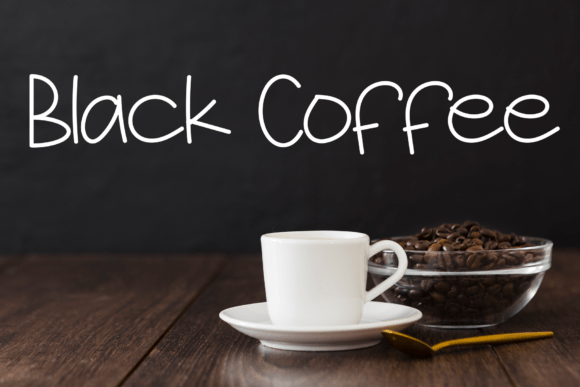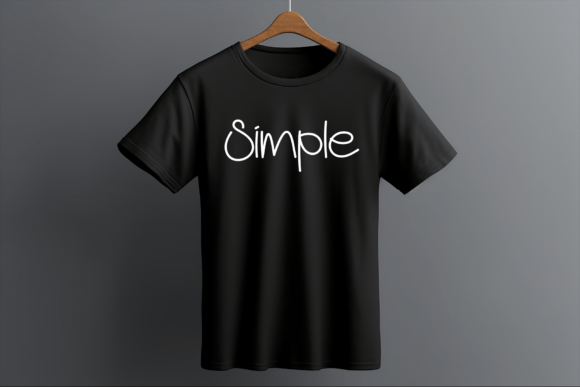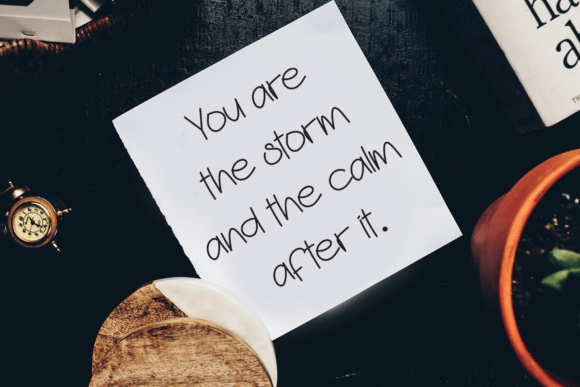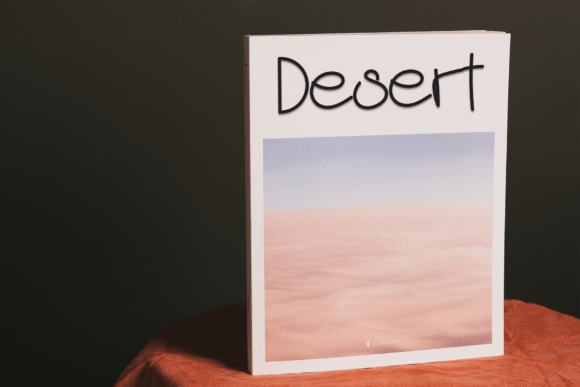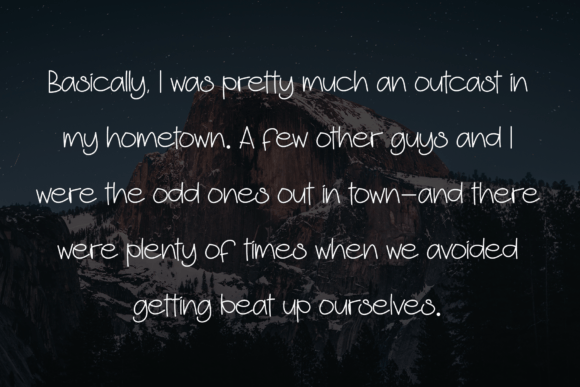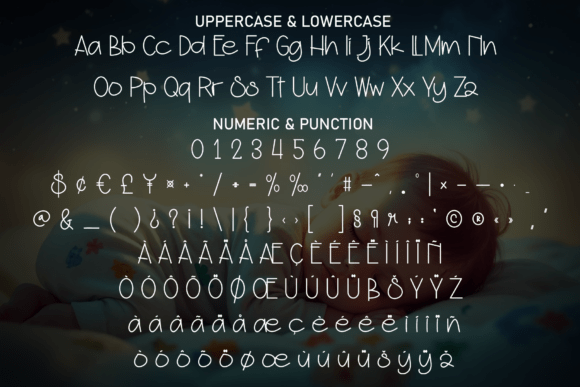
Unlock Your Creativity with the Baby Starnight Font
Have you ever found yourself sitting in front of a blank canvas, staring at a piece of paper, or staring at a screen, trying to come up with the perfect design for a project? You’re not alone. As creatives, we’ve all been there. The blank page can be daunting, but what if you had the perfect tool to bring your ideas to life? Introducing the Baby Starnight Font, a unique and stylish font designed to take your projects to the next level.
The Baby Starnight Font is a versatile and creative product that can be used in a variety of ways, from wall displays to wedding invitations, social media logos, and even product packaging. What makes it truly valuable for designers is its ease of use and compatibility with a range of software, including Adobe Illustrator, Photoshop, and InDesign. With the Baby Starnight Font, you can bring your vision to life without the hassle of complicated installations or additional design software.
Baby Starnight Font Key Features
- Unique Characteristics: Whimsical, cursive script with a touch of elegance and sophistication
- Font Style: Handwritten, script
Baby Starnight Font Review
Overall, I think the Baby Starnight Font is a cute and whimsical choice for child-related projects or designs that need a playful touch. ✨ The rounded edges and soft lines give it a friendly and approachable feel that’s perfect for targeting young audiences. The font is also highly legible, even at smaller sizes, making it a great option for text-heavy designs.
One of the things I like about this font is its versatility. It can be used for a variety of projects, from children’s books to product labels and even signage. ✨ Additionally, the font has a wide range of character sets, including uppercase and lowercase letters, numbers, and punctuation marks.
- Rounded edges and soft lines give it a friendly and approachable feel.
- Highly legible, even at smaller sizes.
- Wide range of character sets, including uppercase and lowercase letters, numbers, and punctuation marks.
- May not be suitable for professional or corporate designs due to its playful nature.
- Lack of bold and italic styles may limit its use in certain design contexts.
- May not be as versatile in digital applications, such as mobile apps or websites.
Overall, I think the Baby Starnight Font is a great choice for child-related projects or designs that need a playful touch. However, it may not be the best option for more professional or corporate designs.
Getting the Most Out of Baby Starnight Font
Some tips to get the most out of Baby Starnight Font include:
1. Experiment with different font sizes and styles to achieve the desired effect.
2. Pair the font with other fonts or design elements to create a unique and visually appealing design.
3. Use the font to create a consistent brand identity or style.
Some common use cases for Baby Starnight Font include:
1. Branding